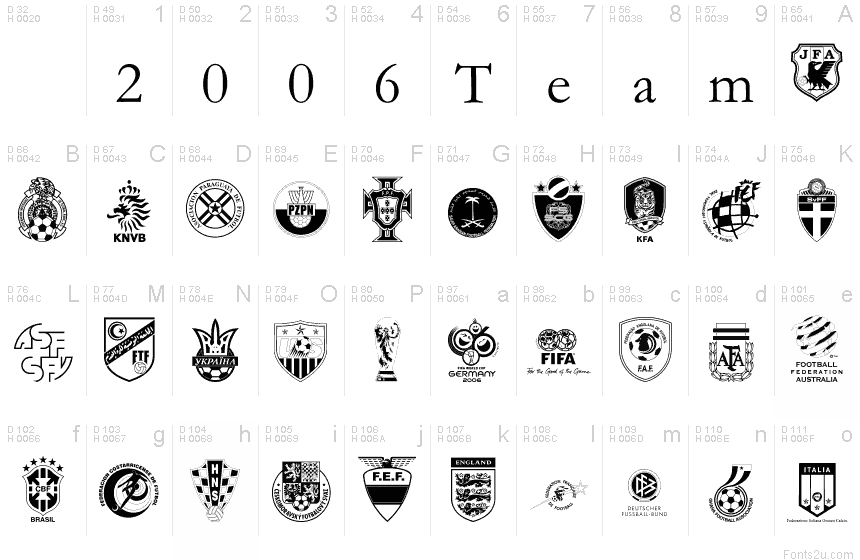
2006 Team
2006 Team font by Icompile is a free sport dingbat typeface that drops an entire stadium of football energy straight into your layout. Packed with detailed crests, federation badges, and bold emblems, each glyph feels like it’s been lifted from a vintage match program or a roaring World Cup banner. The marks are crisp, inky, and graphic, so they hold up even at smaller sizes while still feeling punchy and iconic when blown up.
Using 2006 Team, you can build quick logos, tournament posters, supporter scarves, fan merch, bracket graphics, and social media score updates without drawing a single symbol from scratch. This free font shines when you set the icons large and flank them with a clean geometric sans for names and numbers. It’s a natural fit for sports bars, youth leagues, fantasy teams, and anyone wanting instant “big match” atmosphere.